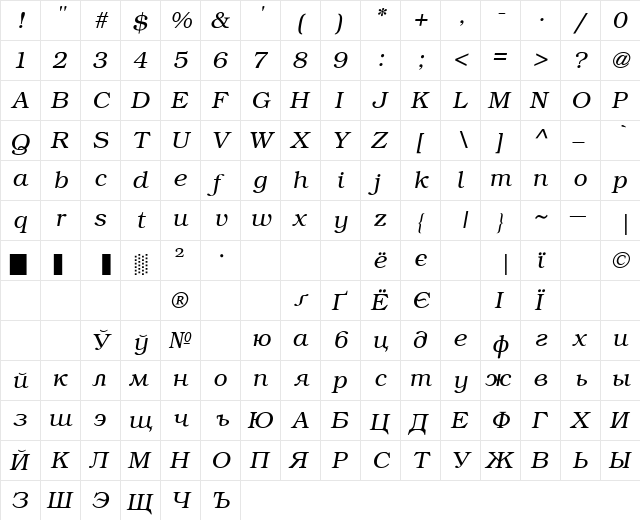
ER Bukinist KOI-8 Italic
Design Context for ER Bukinist KOI-8 Typeface
ER Bukinist KOI-8 offers clean, dependable letterforms without strong stylistic allegiance, making it a practical choice for designers who need flexibility. Its italic angle brings a sense of urgency and motion to the letterforms.
Pro Tip: Try ER Bukinist KOI-8 for annotation and caption copy alongside an upright companion — the contrast in angle creates a dynamic but ordered typographic system.